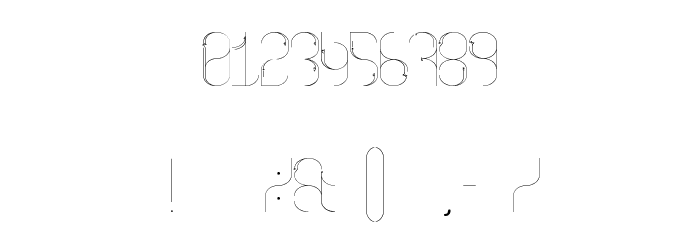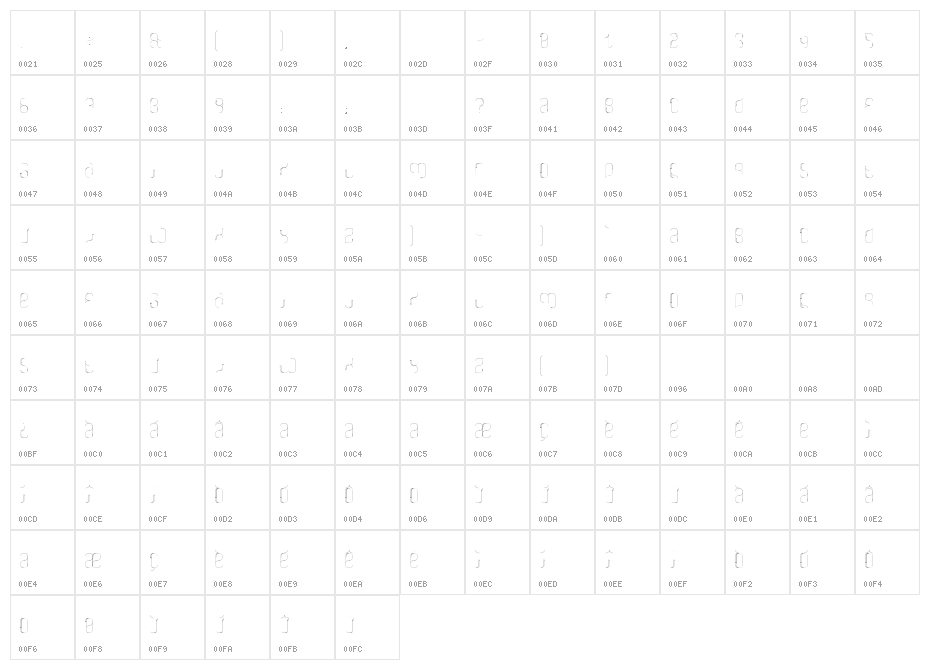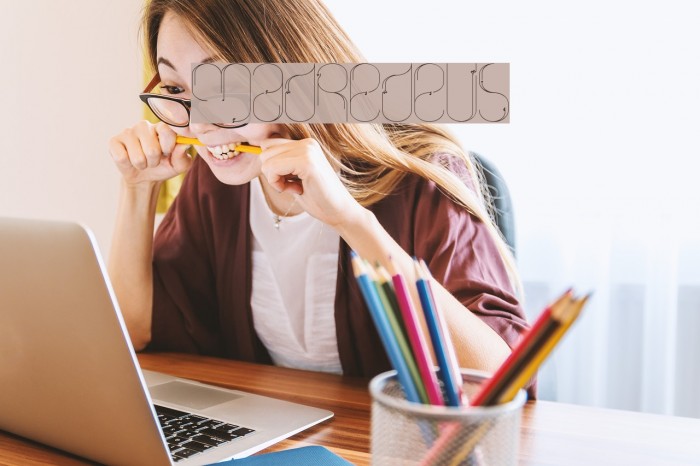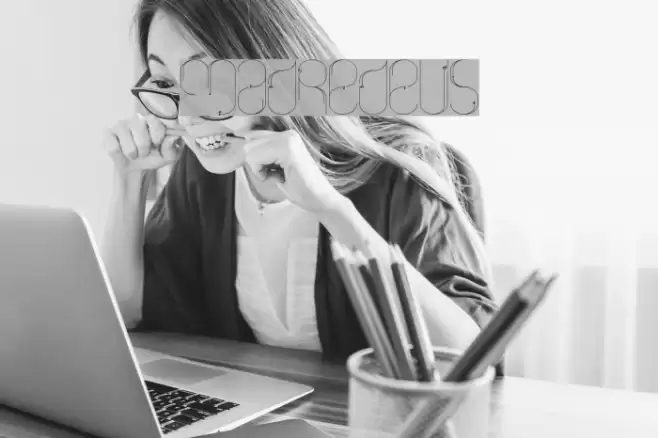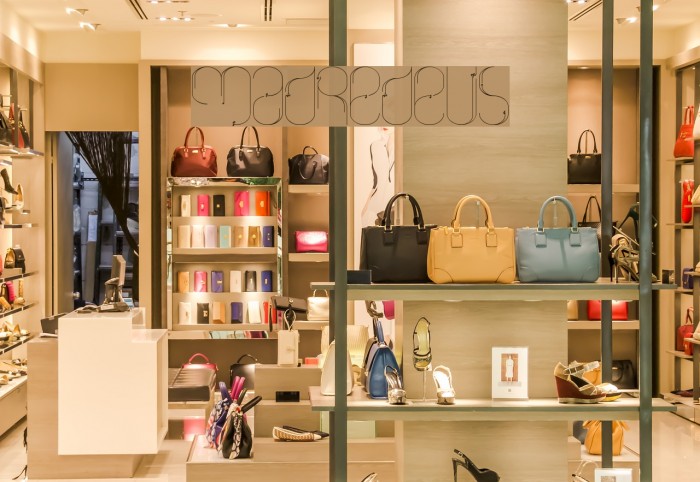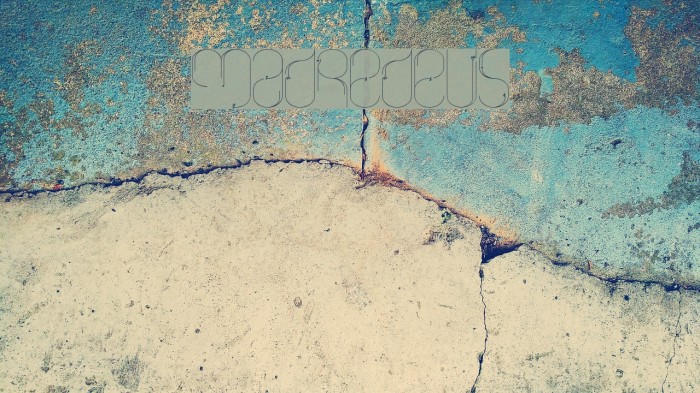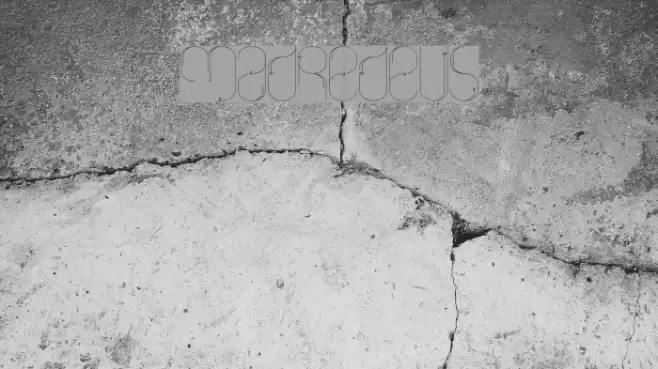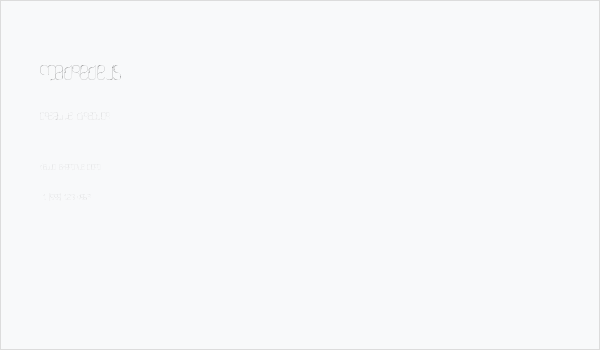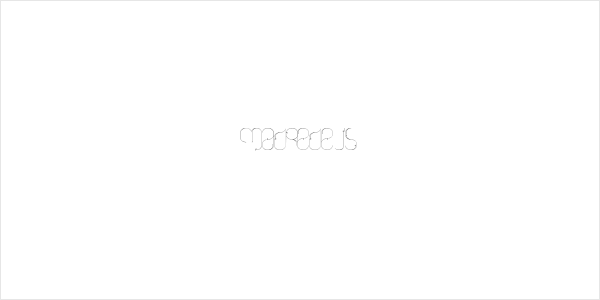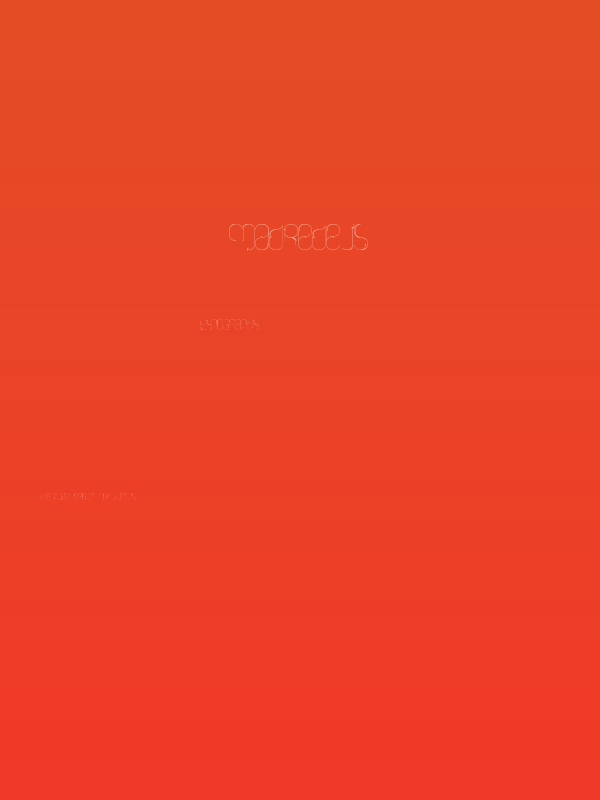
Madredeus Font
Madredeus Description
This font features a unique and modern design with a futuristic flair. The characters are composed of thin lines with rounded edges, creating a sense of fluidity and movement. The uppercase and lowercase letters maintain a consistent style, with a geometric structure that is both minimalistic and visually intriguing. The numbers and special characters follow the same aesthetic, ensuring a cohesive look across all text elements. The font's design is characterized by its open forms and subtle curves, making it suitable for creative and contemporary projects.
| Overall Style | Futuristic and minimalistic |
| Use Case | Logos, digital media, creative projects |
| Proposed Projects | Ideal for branding, digital media, and innovative design projects that require a modern and sleek appearance. |